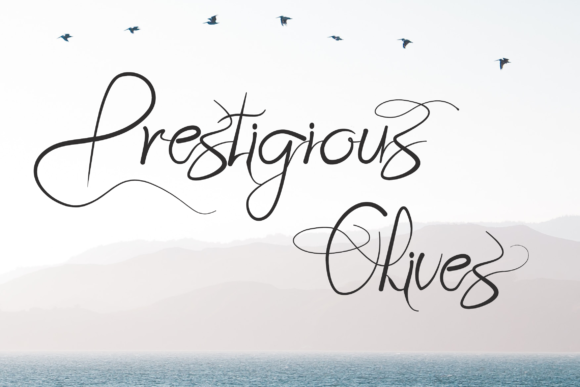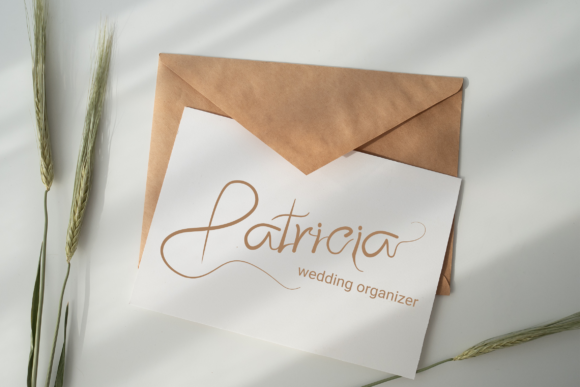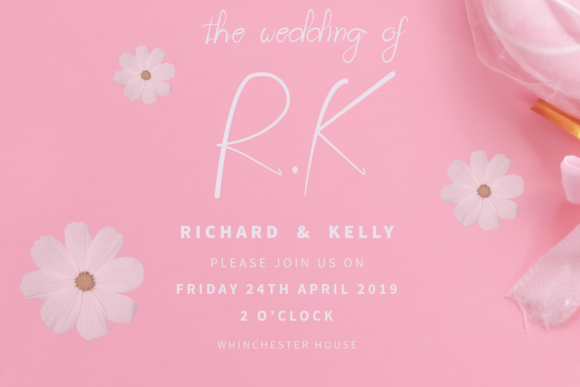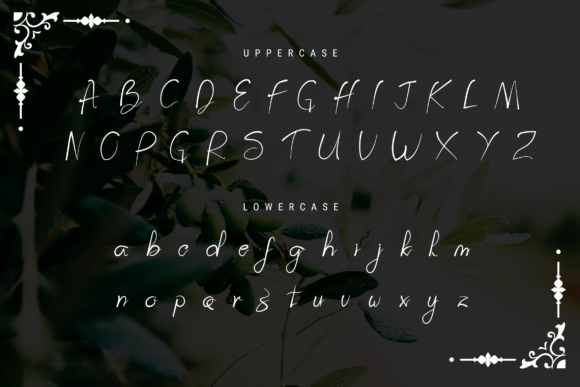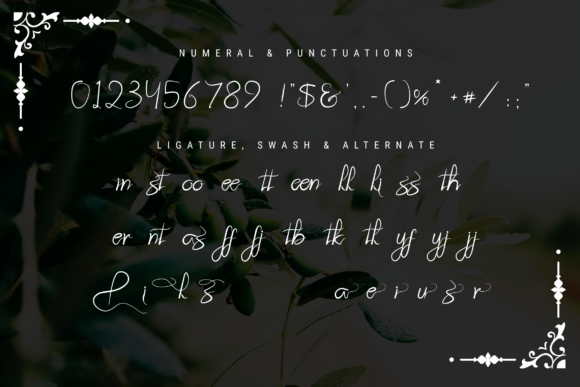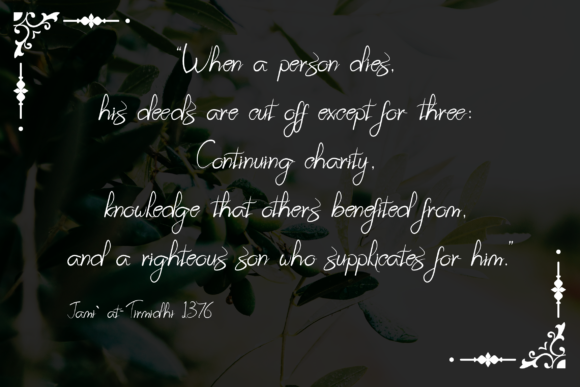
Prestigious Olives Font
About Prestigious Olives Font
Prestigious Olives is a bold and incredibly beautiful script font with stunning swashes. It will turn any design project into a true piece of art.